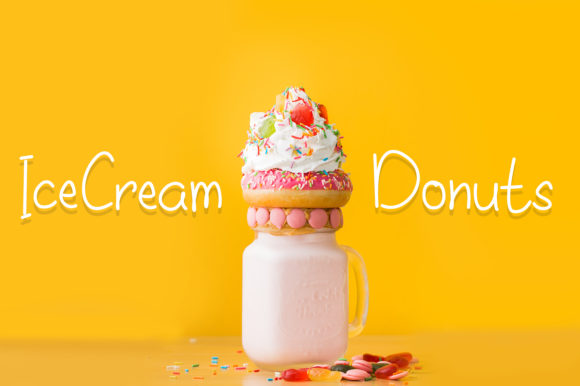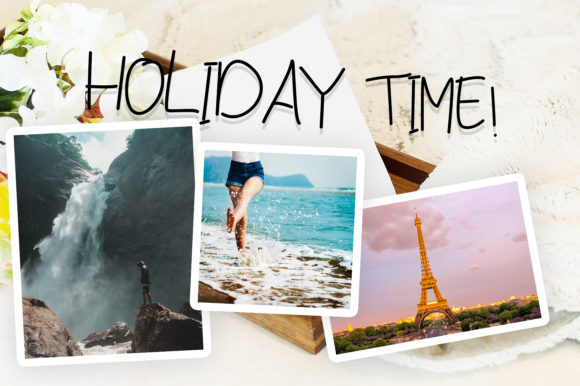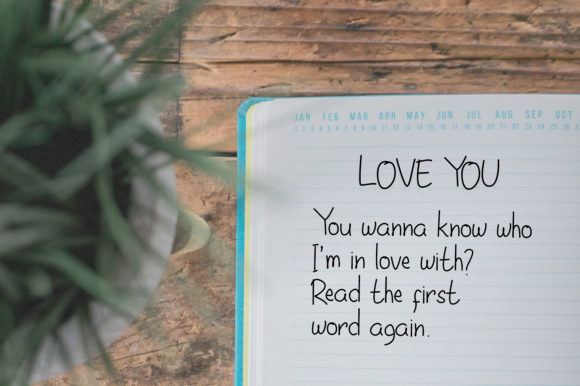
Introduction to Rinly Font
Rinly is a sweet and cool script with a casual look.
Why Choose Rinly Font?
Rinly Font offers exceptional quality and versatility, making it a valuable addition to your design toolkit. Whether you’re creating for personal projects or commercial use, Rinly Font delivers professional results.